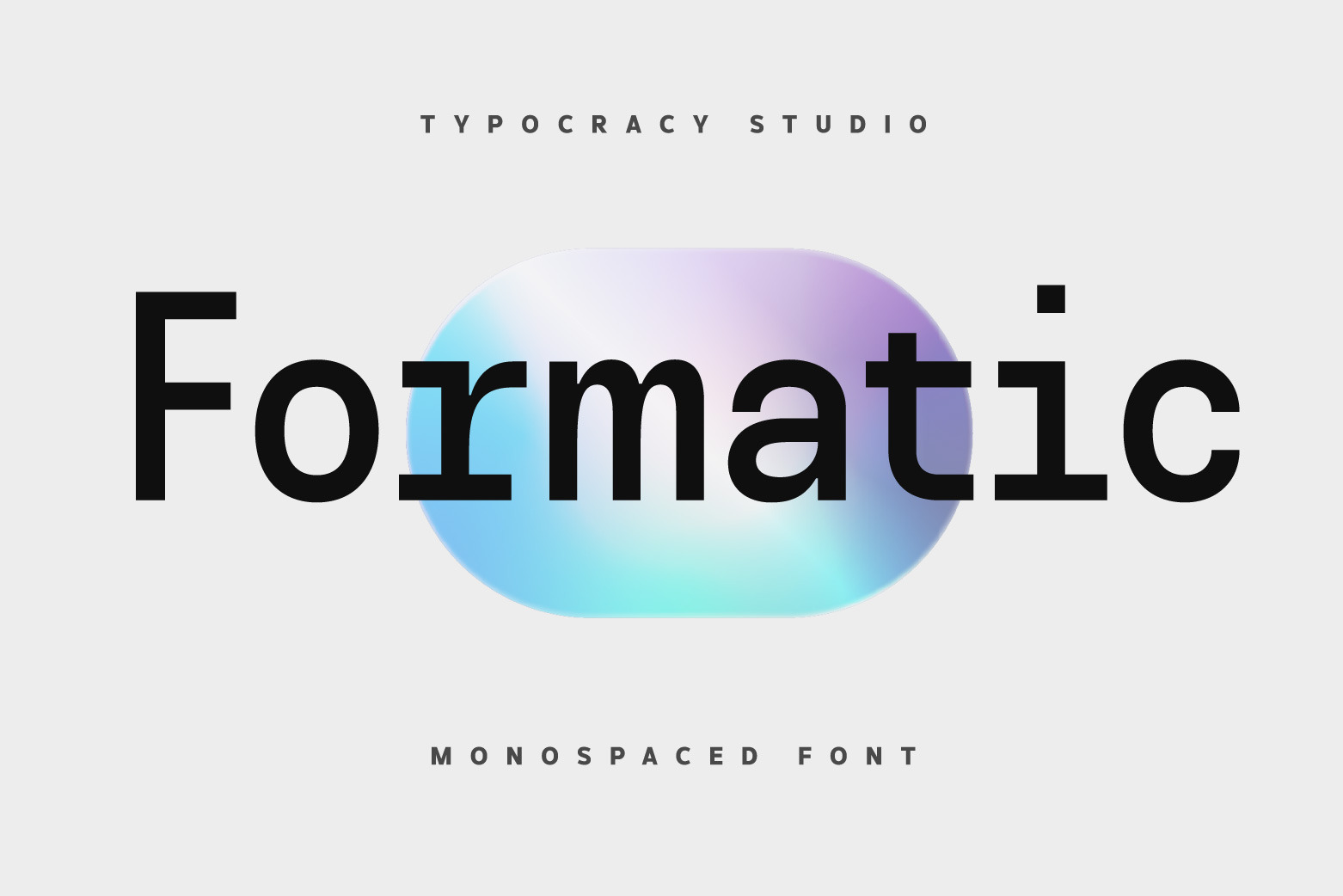
Formatic - Monospaced Font
Formatic Monospace Sans Font is perfect for your up coming projects. Such as classic logo and branding, classic editorial design, magazine, fashion promotional, Ticket design, stationery design, blog design, advertising design, music, men skincare, art quote, home decor, book / novel cover title, special events and any more.